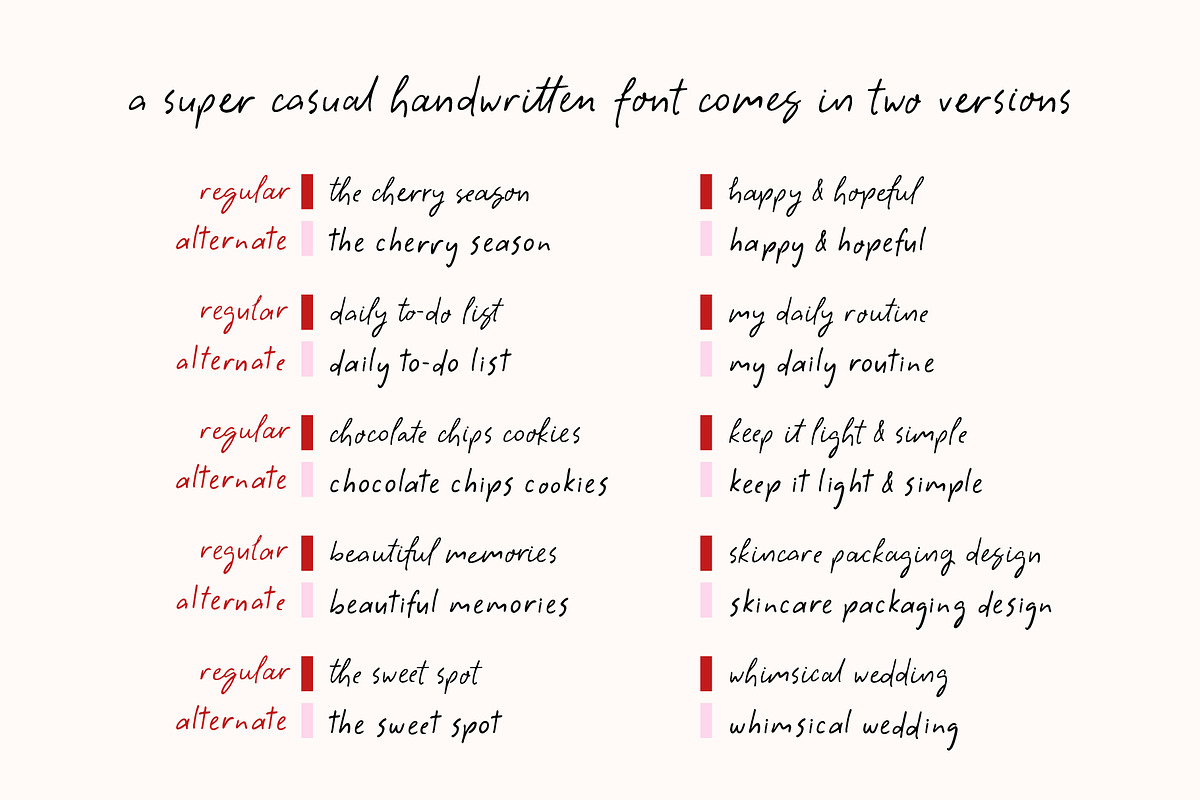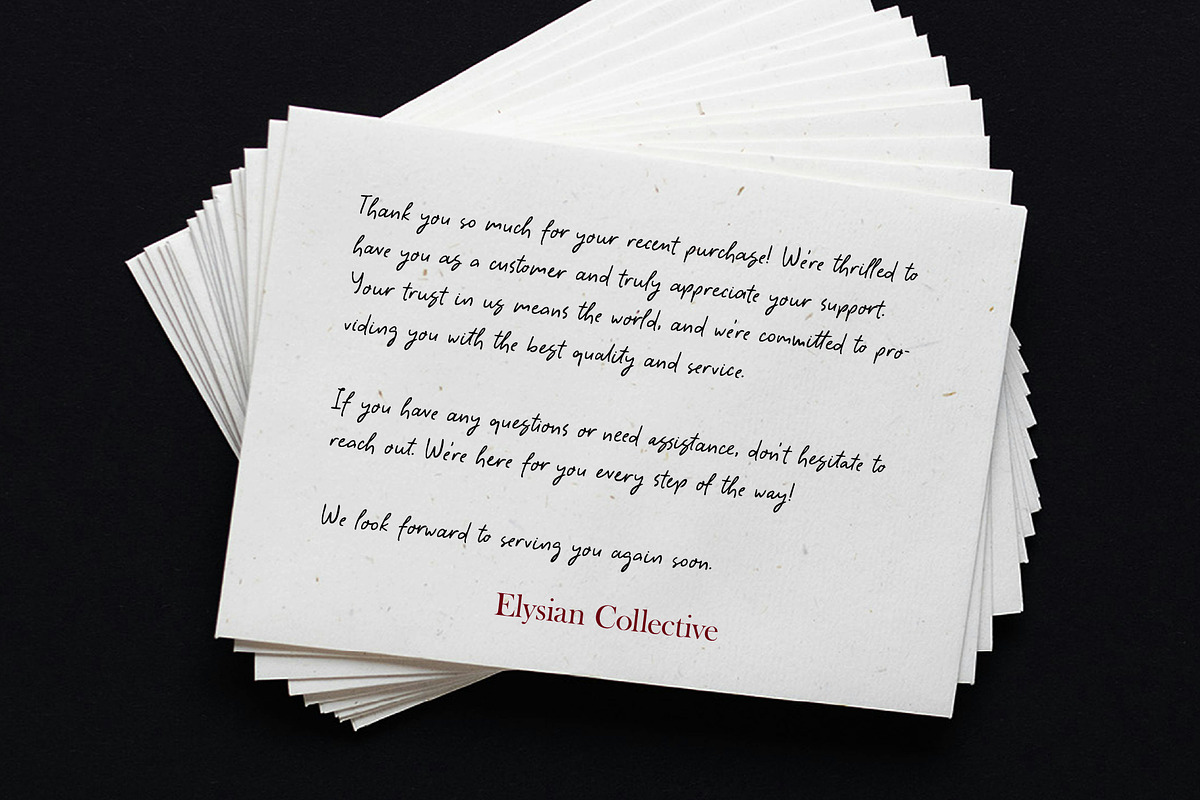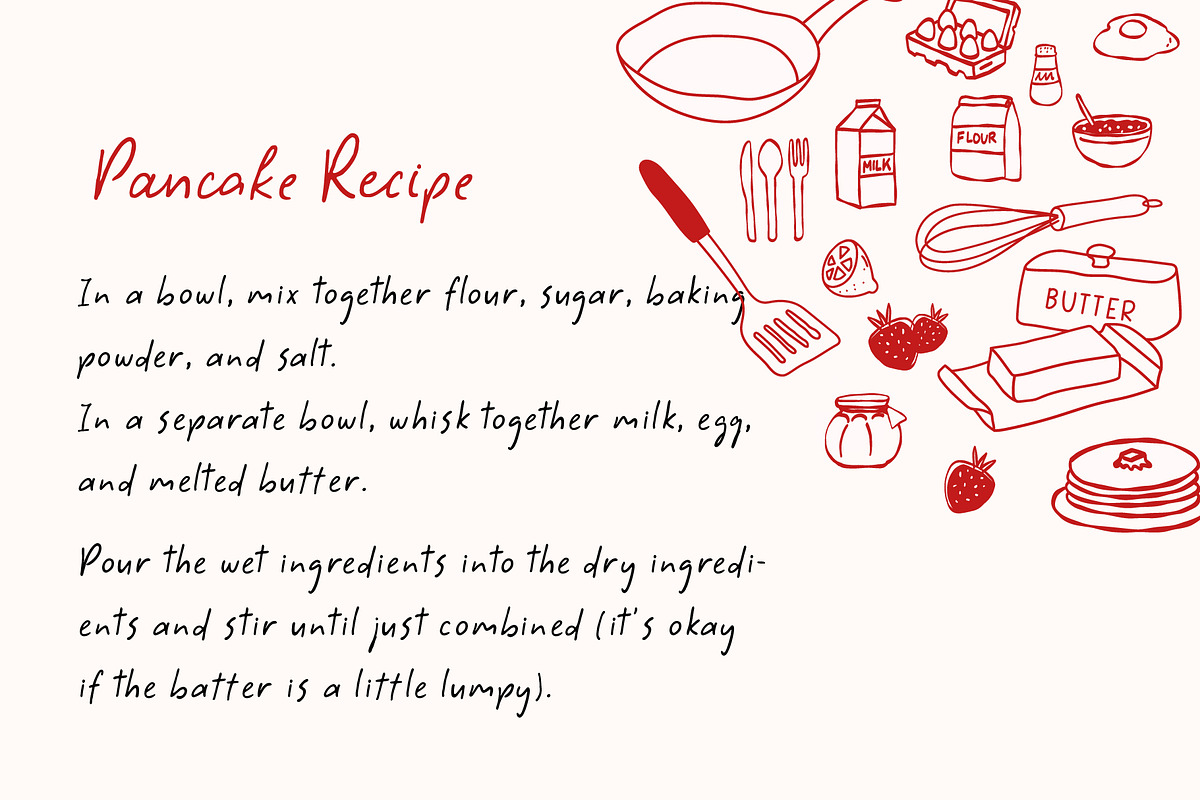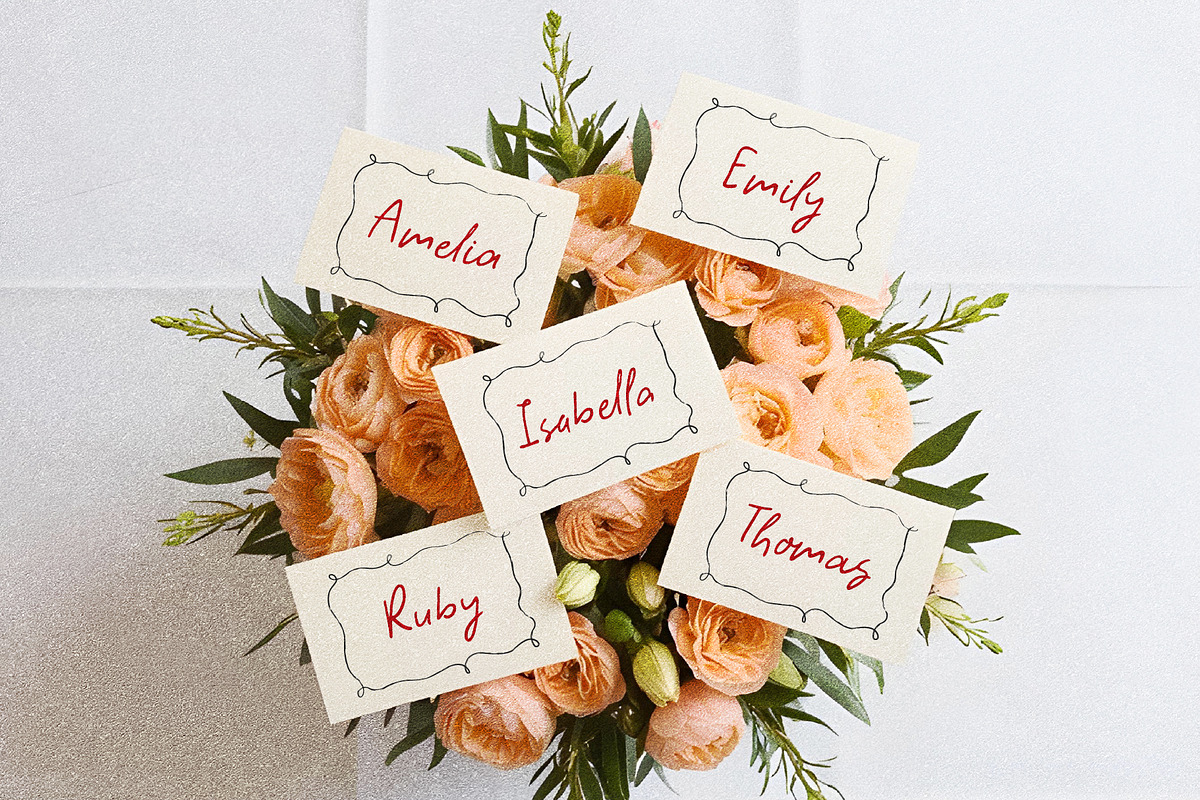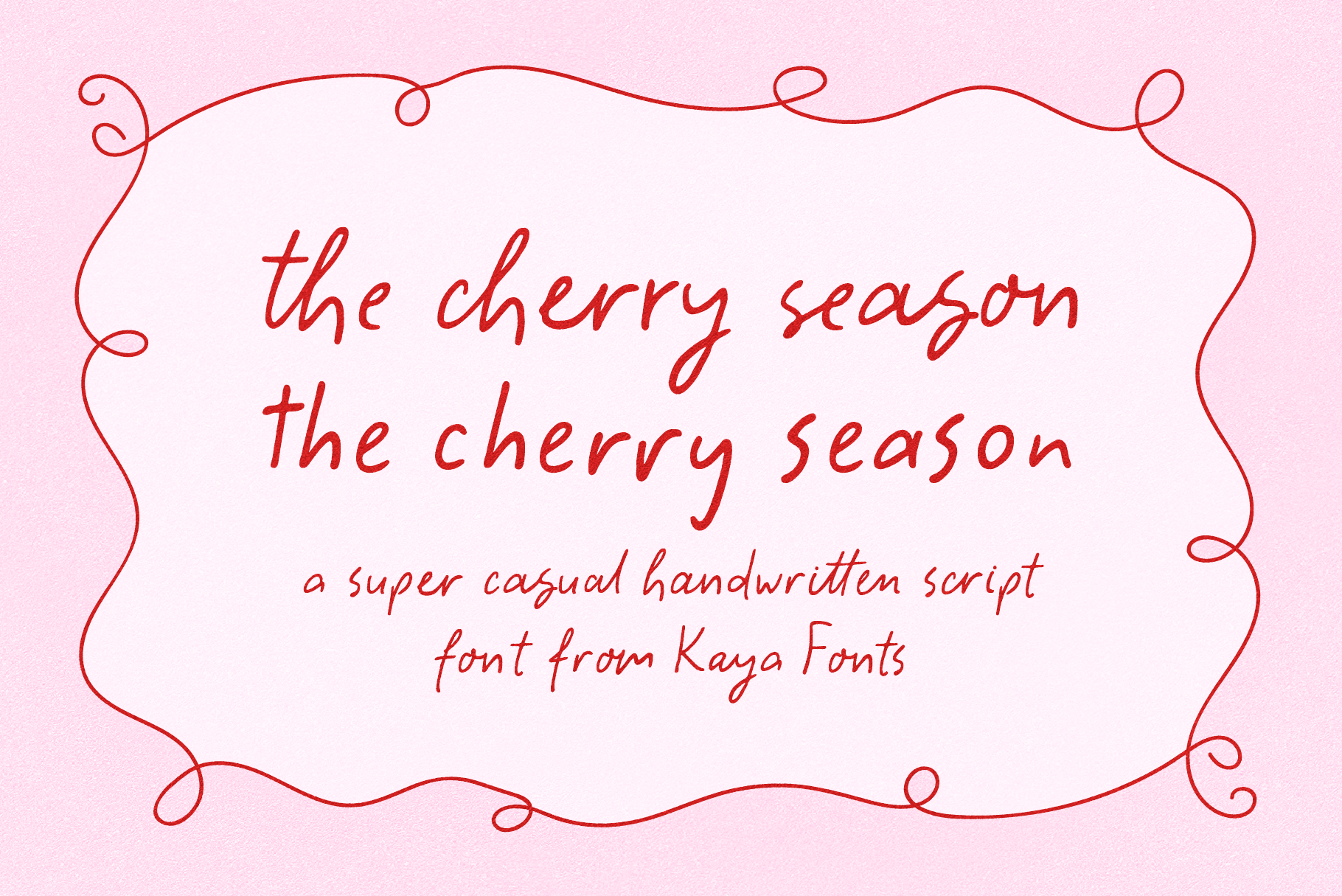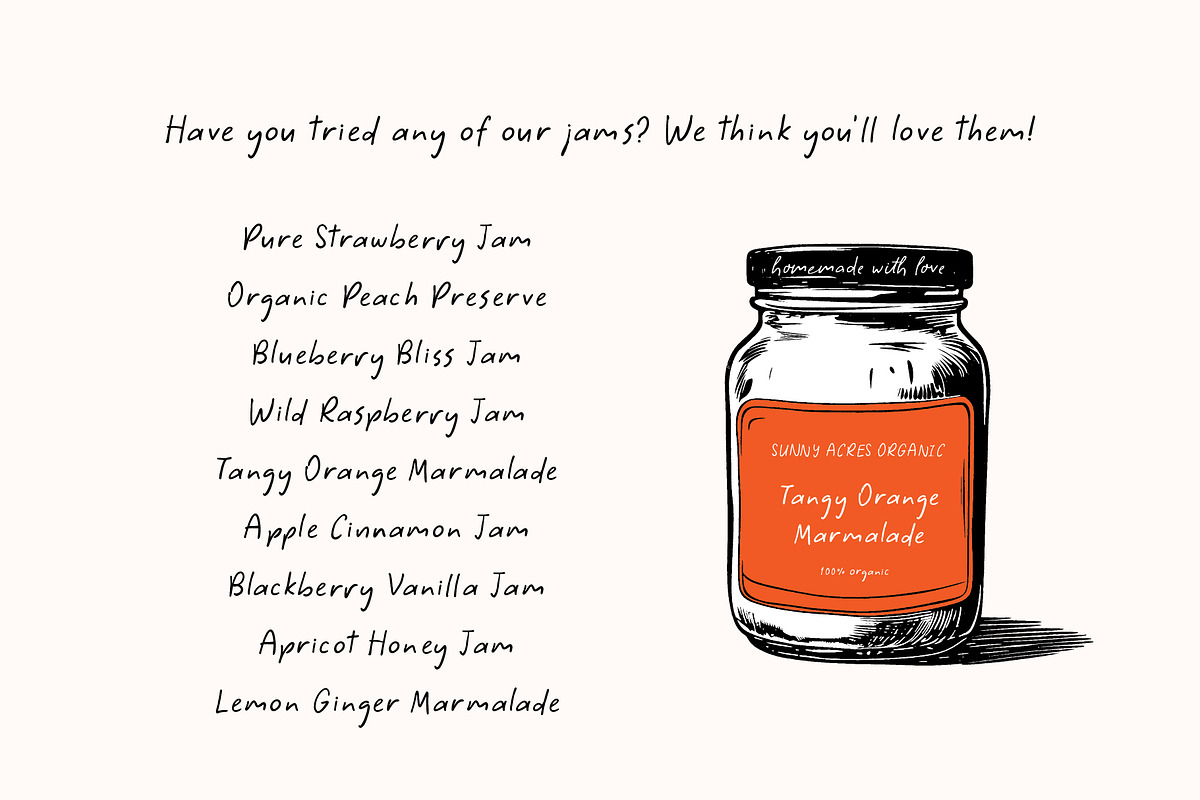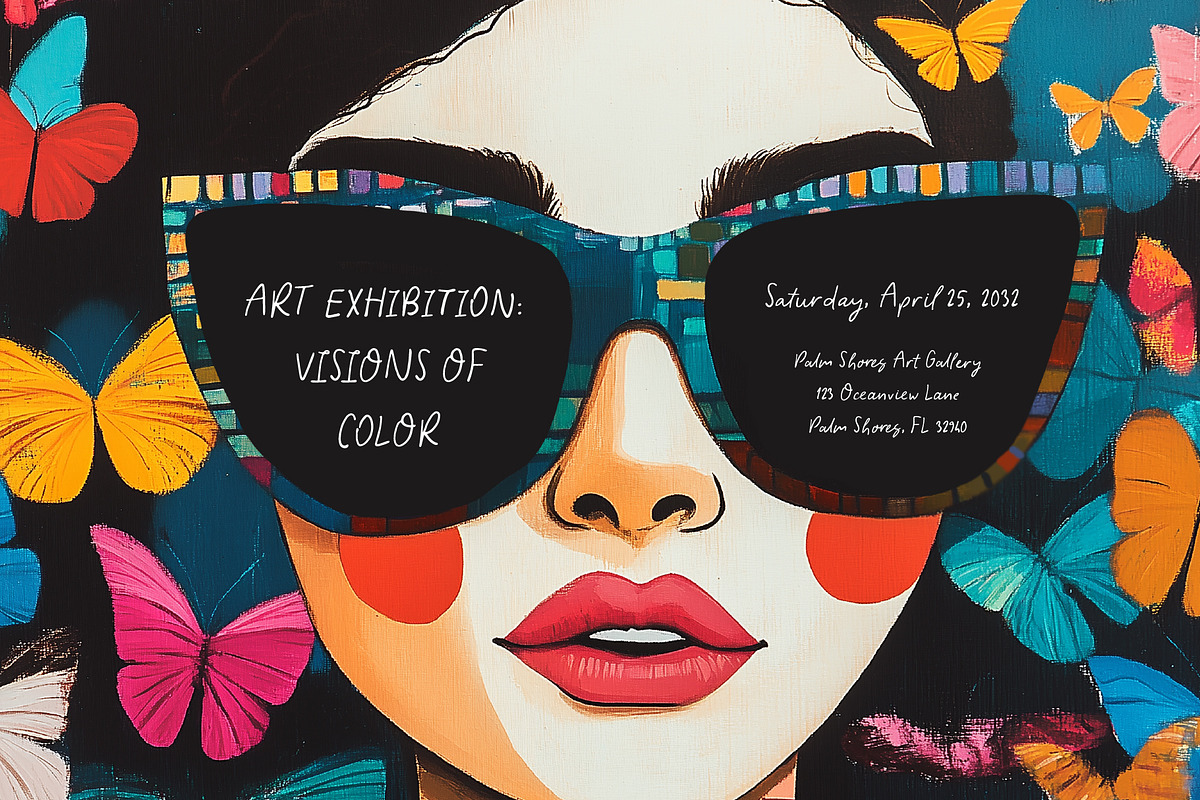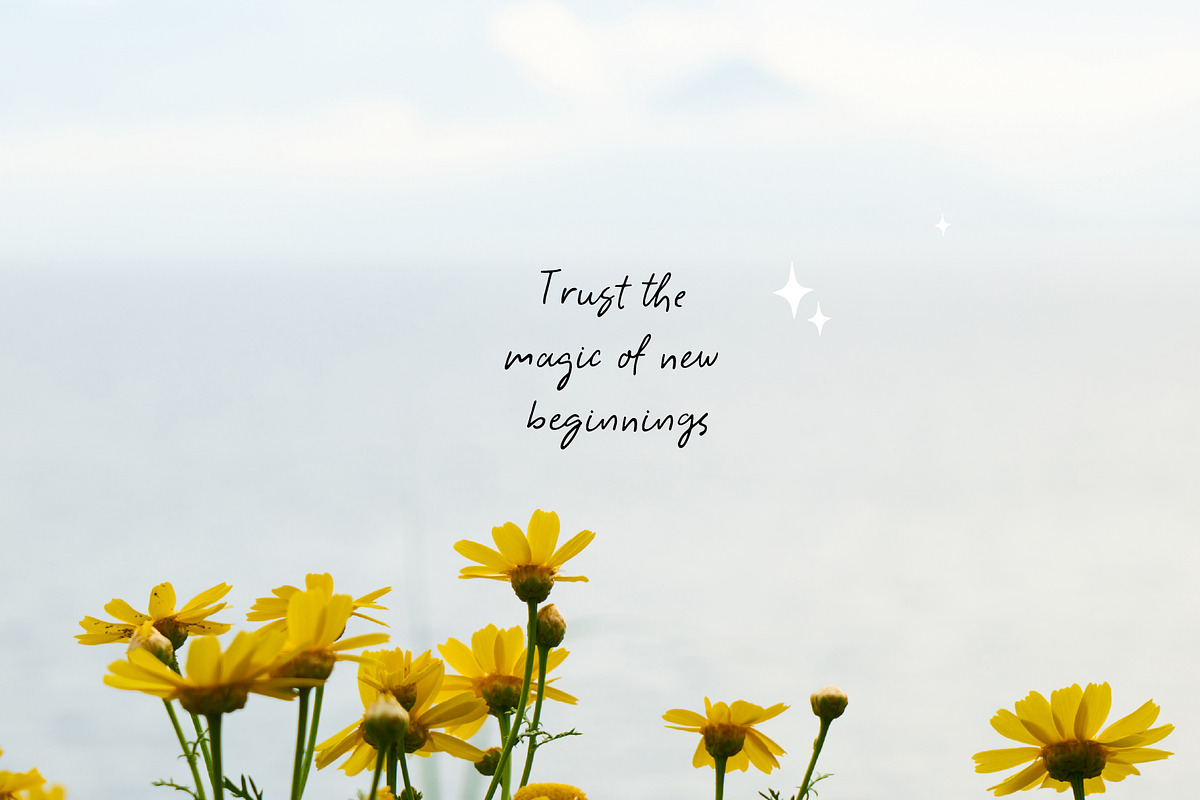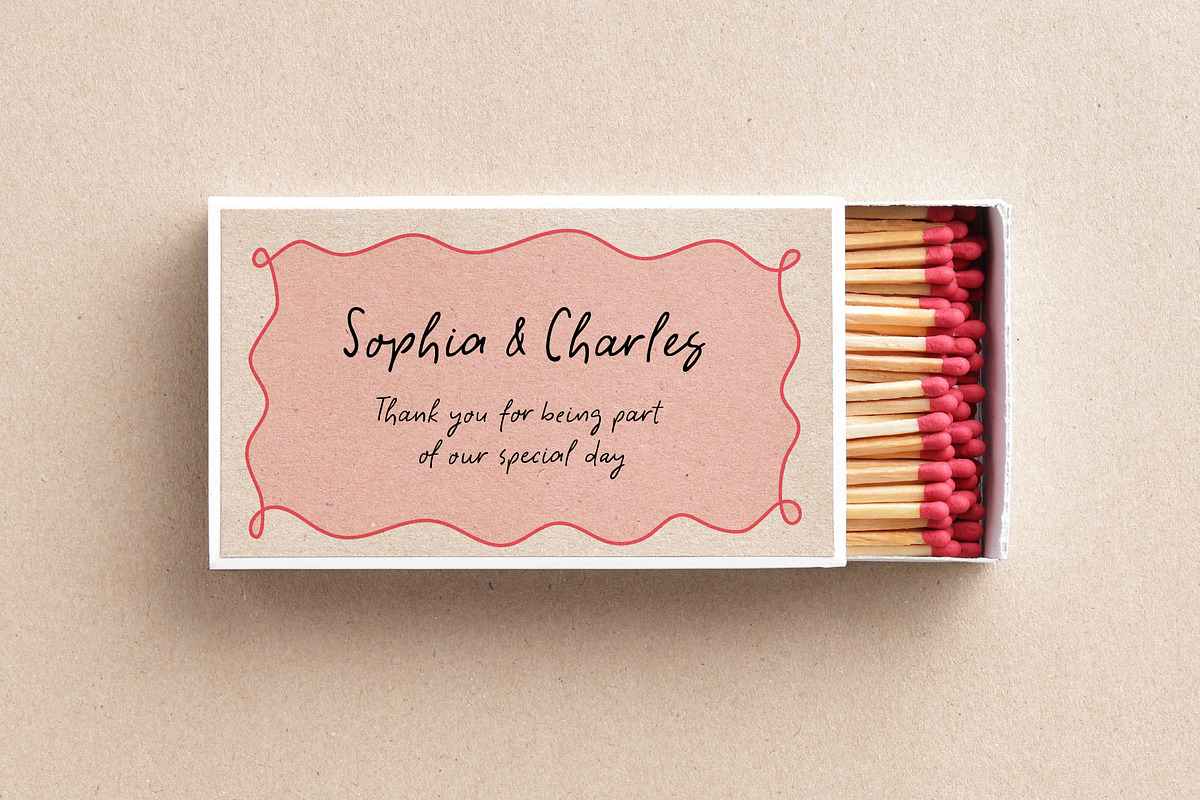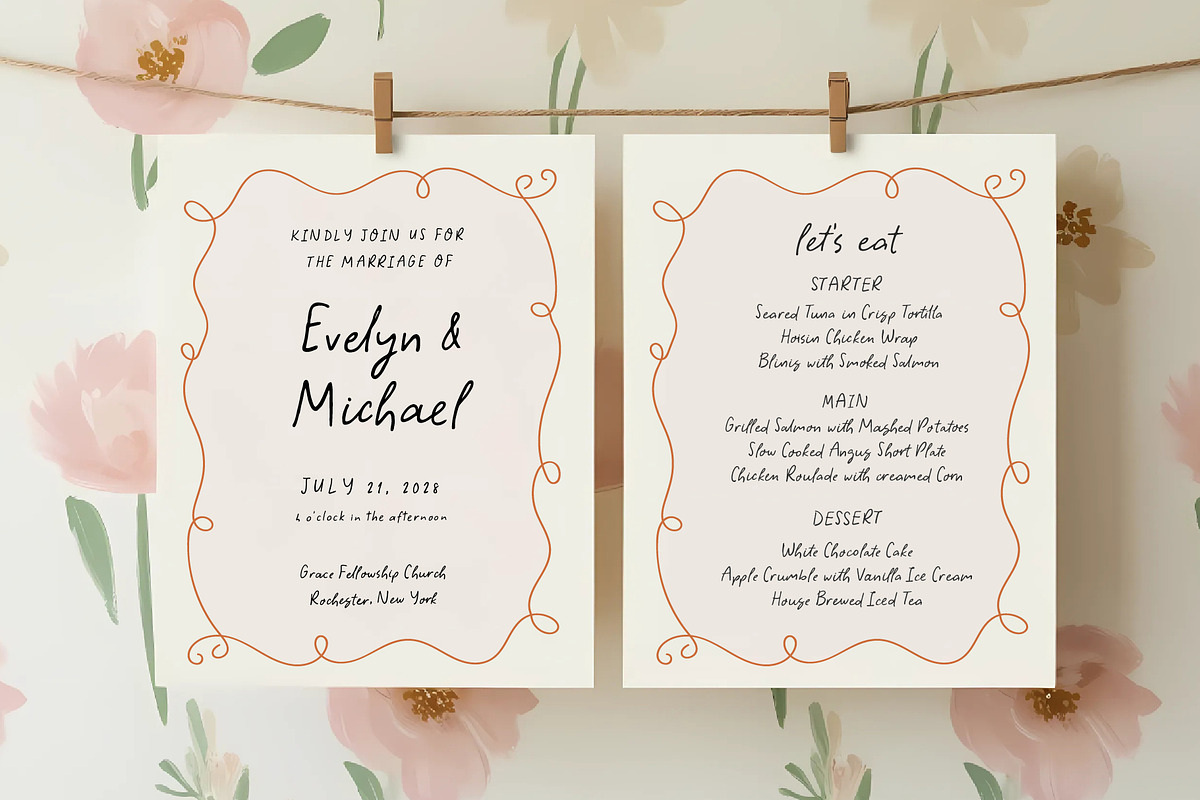
The Cherry Season - Handwritten Font
Happy to introduce The Cherry Season, a super casual ligature based script font. It comes with a sister font which is perfect for quotes & illustrations.
Both fonts are ideal for invitations, greeting cards, logos, branding, social media, printed goods, or anything that needs a touch of personality. Note: They have intentionally natural and imperfect edges, so we recommend using them for digital and print projects rather than for cutting machine DIYs.
REGULAR FONT FEATURES • Organic, ligature based, semi-connected script font. • Standard characters (two sets of lowercase and uppercase, numbers, punctuation) • 110+ Standard Ligatures • Whimsical & realistic handwriting
ALTERNATE FONT FEATURES • A little bolder with disconnected letters • Standard characters (two sets of lowercase and uppercase, numbers, punctuation) • Double letter ligatures • Super casual handwriting